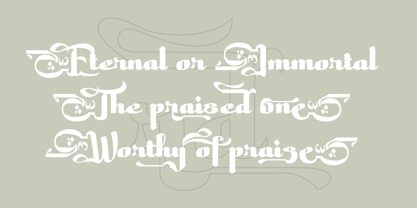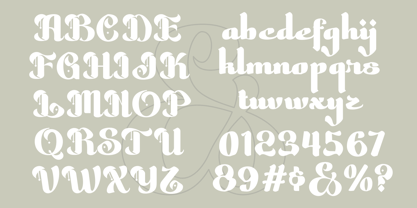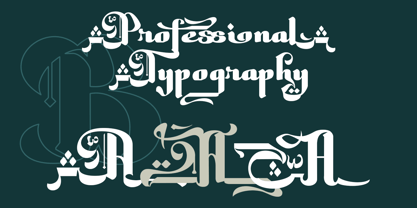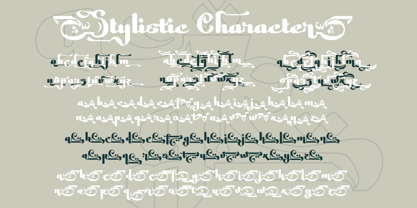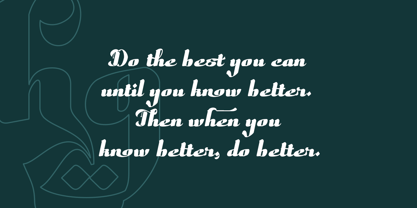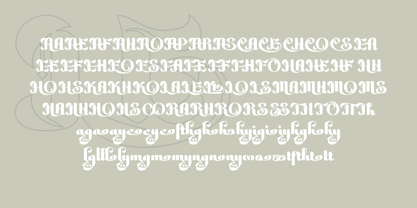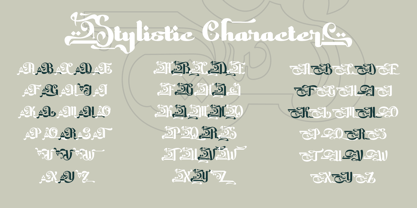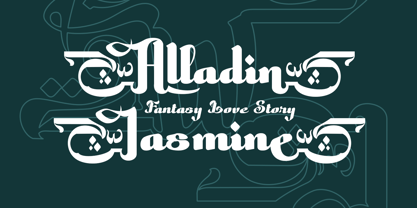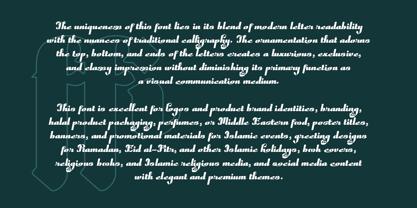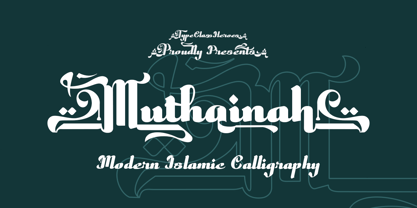
Muthainah
par TypeClassHeroes
La famille de polices Muthainah a été conçue par Suandana ipandemade et publiée par TypeClassHeroes. Muthainah contient 2 styles et options de package familial. En savoir plus sur cette famille
Muthainah font is inspired by the beauty of Islamic calligraphy and Middle Eastern typography. Its design combines Latin letterforms with touches of typical Arabic ornamentation, resulting in an artistic, elegant, and characterful look. Each letter features curved details, decorative accents, and geometric elements that reflect the aesthetic value of Islamic art. The uniqueness of this font lies in its blend of modern letter readability with the nuances of traditional calligraphy. The ornamentation that adorns the top, bottom, and ends of the letters creates a luxurious, exclusive, and classy impression without diminishing its primary function as a visual communication medium. This font is excellent for logos and product brand identities, fashion branding, halal product packaging, perfumes, or Middle Eastern food, poster titles, banners, and promotional materials for Islamic events, greeting designs for Ramadan, Eid al-Fitr, and other Islamic holidays, book covers, religious books, and Islamic religious media, and social media content with elegant and premium themes.
Concepteurs: Suandana ipandemade
Fonderie: TypeClassHeroes